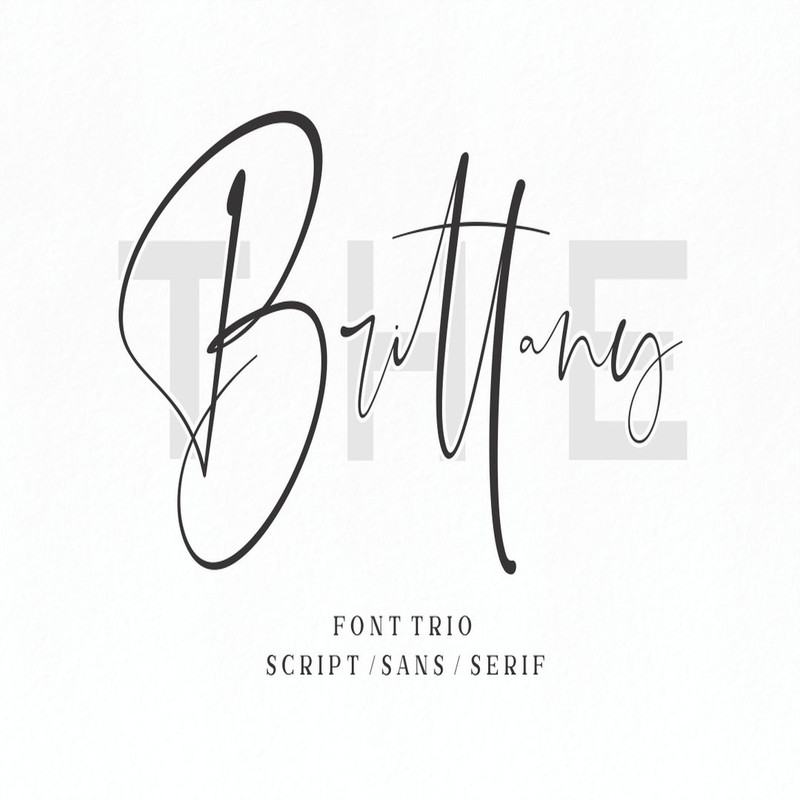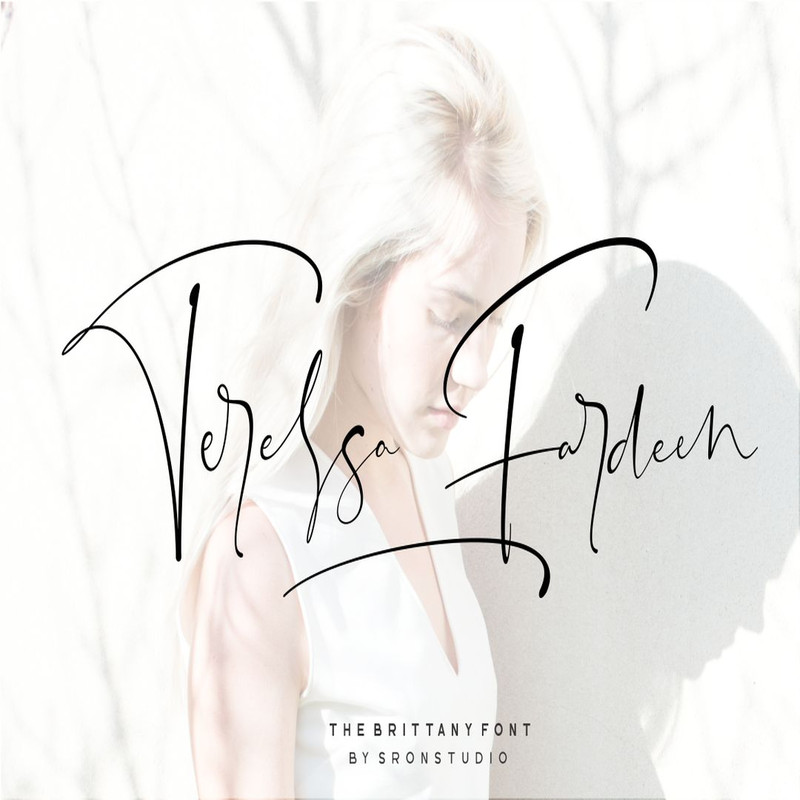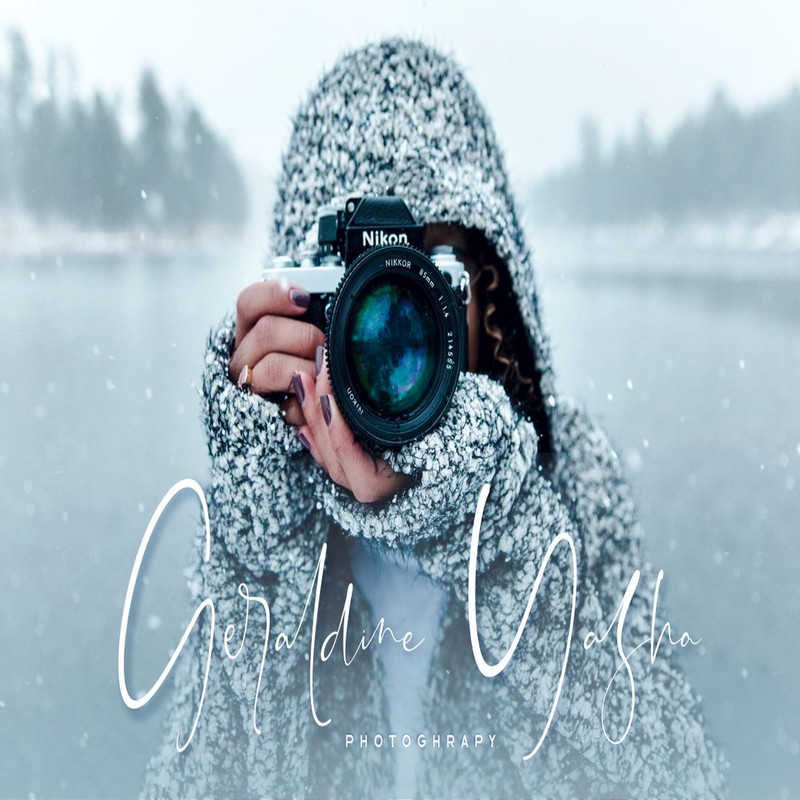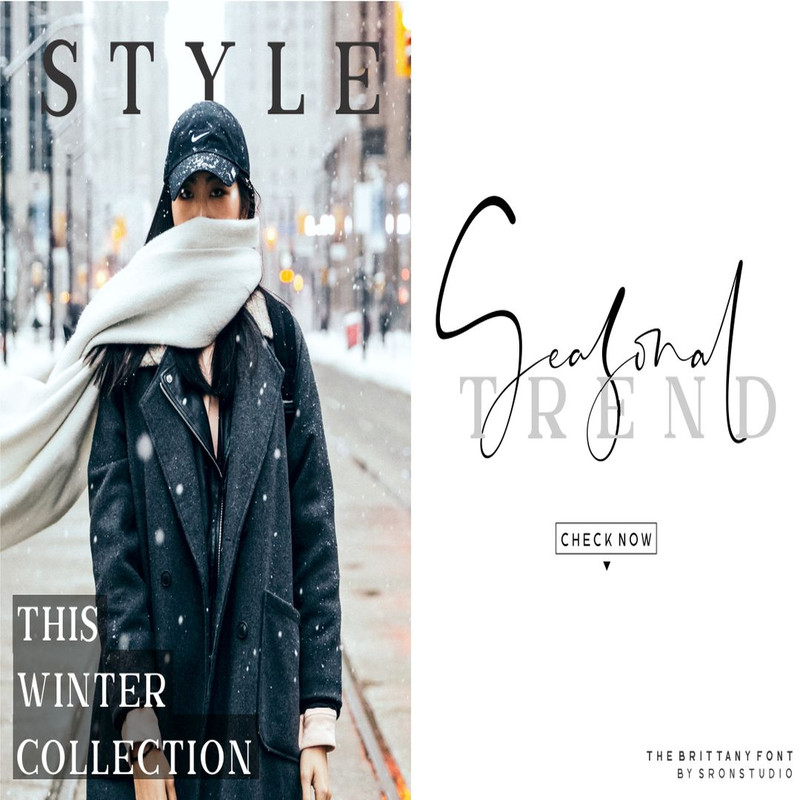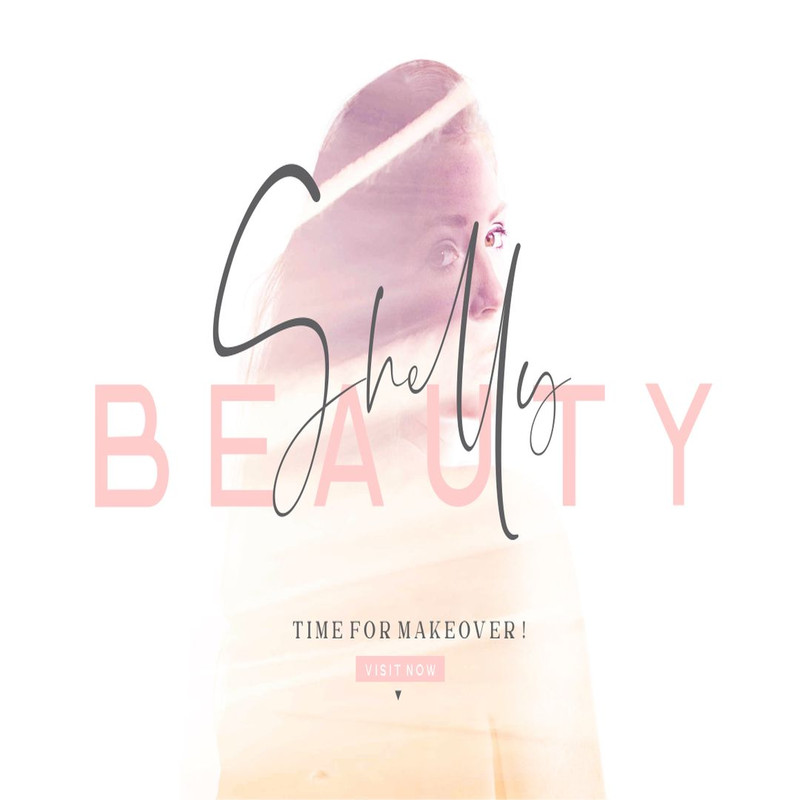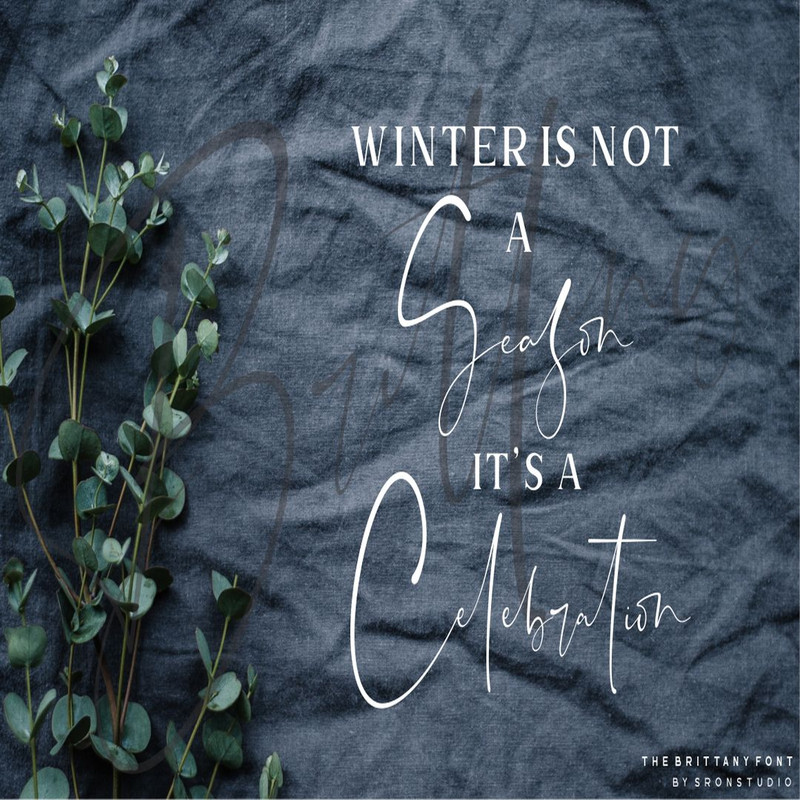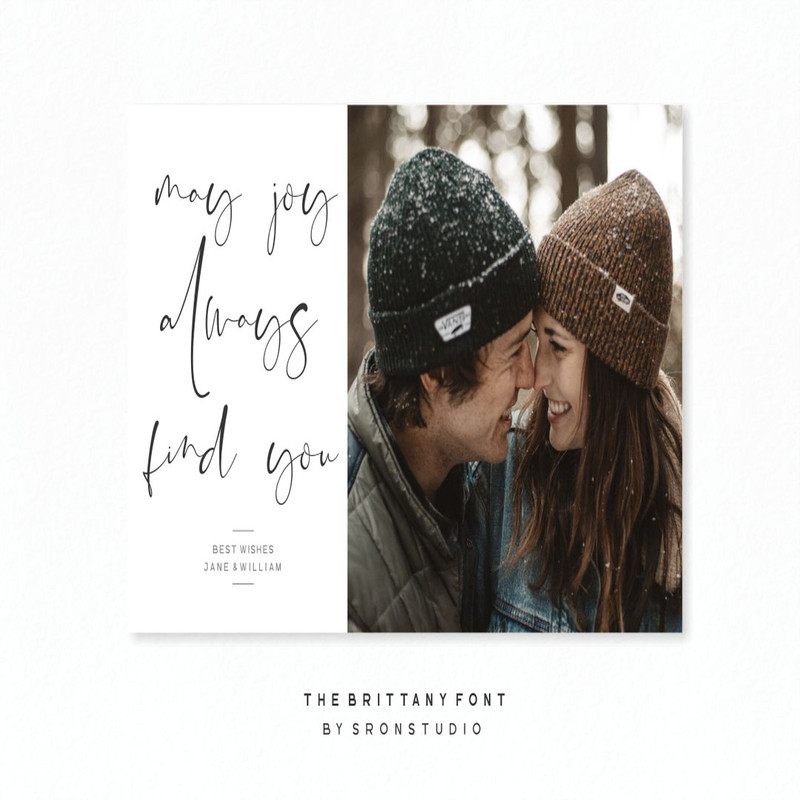
Introducing The Brittany / Font Trio
The Brittany is an elegant font trio. It comes with 5 styles which can be paired together perfectly! It gives you the opportunity to create stylish and modern designs, every time you use it.
Thr Brittany comes with Brittany script that contain 81 ligatures , lowercase & ligatures swashes, Brittany sans ( Regular, Bold), and Brittany serif 1 & 2.
The Brittany is the great choice for watermark on photography, signature or signature logo design, quotes, album cover, business card, and many other design project.
Introducing The Brittany / Font Trio
The Brittany is an elegant font trio. It comes with 5 styles which can be paired together perfectly! It gives you the opportunity to create stylish and modern designs, every time you use it.
Thr Brittany comes with Brittany script that contain 81 ligatures , lowercase & ligatures swashes, Brittany sans ( Regular, Bold), and Brittany serif 1 & 2.
The Brittany is the great choice for watermark on photography, signature or signature logo design, quotes, album cover, business card, and many other design project.
Introducing The Brittany / Font Trio
The Brittany is an elegant font trio. It comes with 5 styles which can be paired together perfectly! It gives you the opportunity to create stylish and modern designs, every time you use it.
Thr Brittany comes with Brittany script that contain 81 ligatures , lowercase & ligatures swashes, Brittany sans ( Regular, Bold), and Brittany serif 1 & 2.
The Brittany is the great choice for watermark on photography, signature or signature logo design, quotes, album cover, business card, and many other design project.
Introducing The Brittany / Font Trio
The Brittany is an elegant font trio. It comes with 5 styles which can be paired together perfectly! It gives you the opportunity to create stylish and modern designs, every time you use it.
Thr Brittany comes with Brittany script that contain 81 ligatures , lowercase & ligatures swashes, Brittany sans ( Regular, Bold), and Brittany serif 1 & 2.
The Brittany is the great choice for watermark on photography, signature or signature logo design, quotes, album cover, business card, and many other design project.